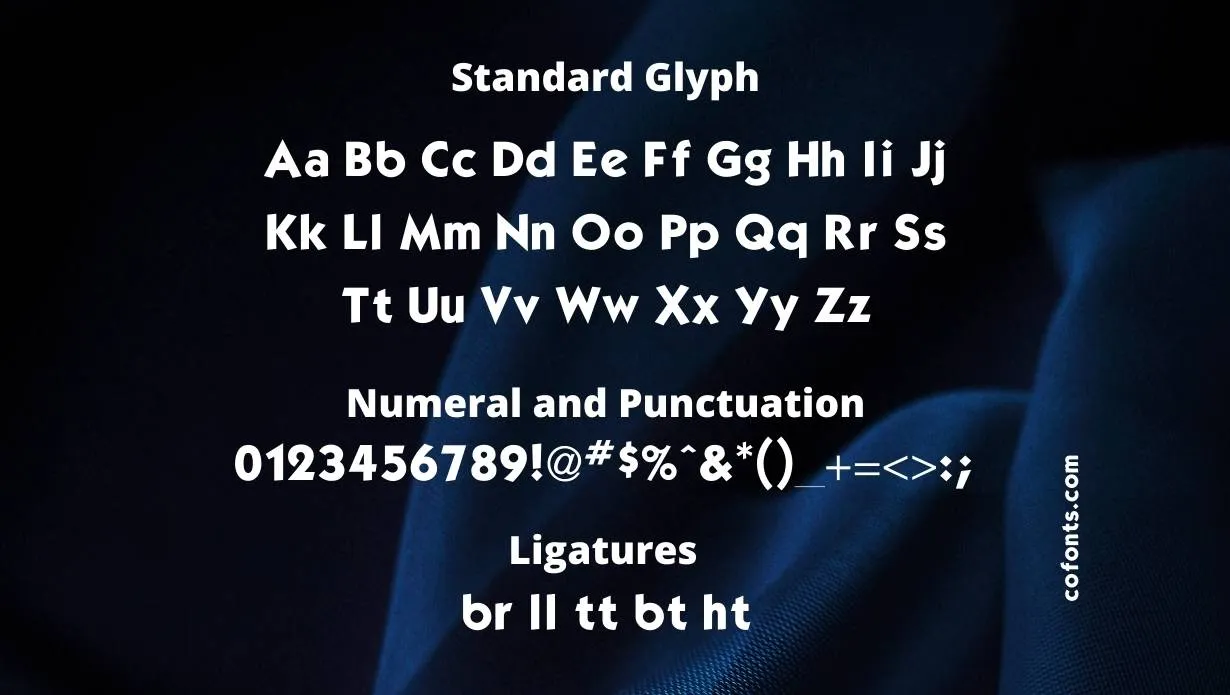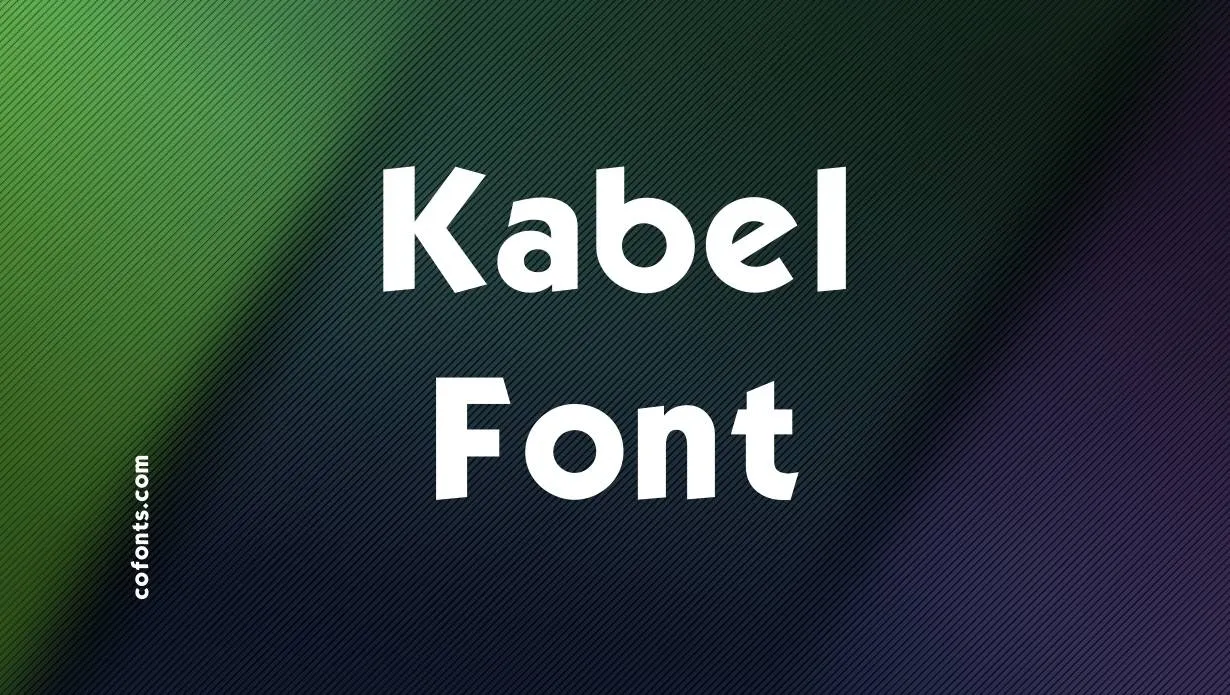
ITC Kabel Font
About ITC Kabel Font
ITC Kabel is a classic geometric sans-serif typeface originally designed by Rudolf Koch in 1927. Known for its distinctive irregular geometry, angled terminals, and humanist influence, it blends modernist structure with expressive character. Revived and refined by the International Typeface Corporation (ITC), ITC Kabel remains popular in branding, editorial design, and display typography where a timeless yet unconventional visual identity is desired.